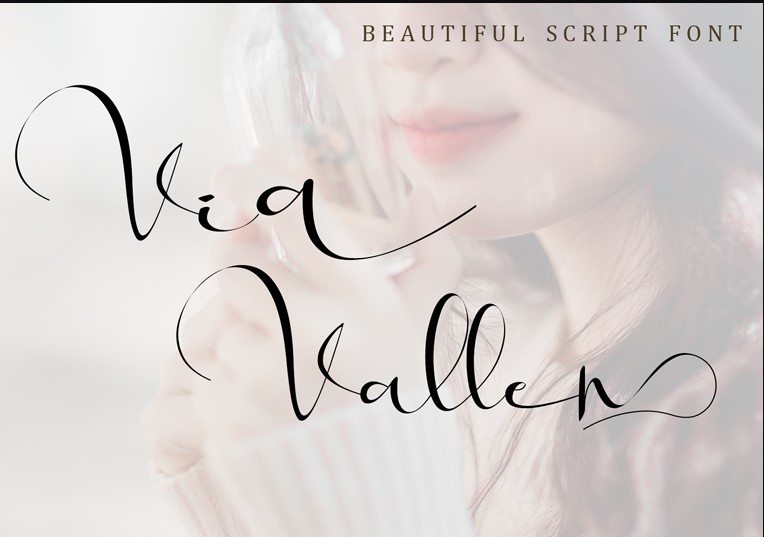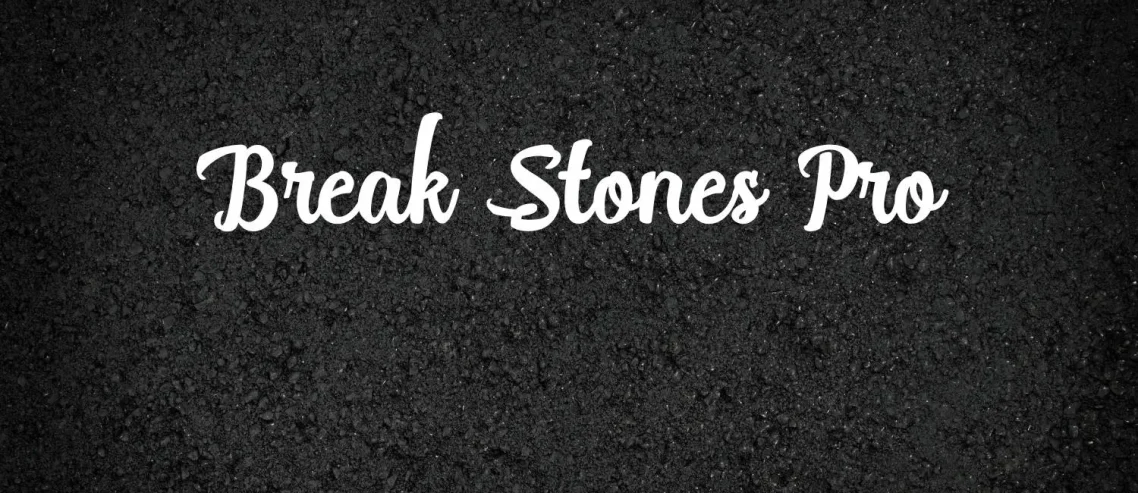
Via Vallen Font
Via Vallen font enhances the beauty of defined fonts by offering bold and italic functions. This font is also compatible with HTML. Now, the best’s manufacturers took the all right reserved for this commercial business enterprise. Its headquarter positioned downtown, north. Style Of Via Vallen Font Free Download
Break Stones Pro Font Free Download
The font “Break Stones Pro,” created by Jason Vanderhill, is a strong and striking typeface. It gives your words a solid and enduring appearance, making it ideal for headlines and titles that demand attention. The font’s strength lies in its robust design, creating a lasting impression on any project. Font Family Break Stones Pro Font …
Regime Grotesk Font
Regime Grotesk Font is highly regarded as an excellent choice for contemporary advertising and marketing, sure to leave a lasting impression. A totally well-known content fabric creator from kodex font the all right reserved for this stylish typeface. And he creates it for lucy script present-day writing and springs under the class of display fonts. Style …
Adventura Letter & Emo Font
Adventura Letter & Emo Font is the maximum applied font of the Disney global that looks just like destiny font. It is a script typeface. A famous American content creator took the all proper for this fashionable typeface. And he creates it for them makes the content material cloth appearance fashionable. Style Of Adventura Letter …
Orator STD Medium Font Free Download
The Orator STD Medium font, designed by talented typographer Jessica Reynolds, is a versatile and robust typeface that strikes a perfect balance between modernity and classic aesthetic. Renowned for her keen eye for detail and innovative design approach, Reynolds crafted Orator STD Medium to be a reliable choice for a variety of design applications. The …
Jersey M54 Font
Jersey M54 Font is not your typical outline font. It’s in the same league as the popular varsity font. Using this font can enhance your writing skills and make them more appealing. Want to step up your font game? Try this unique style! Now, the incredible’s businesses inc took the all proper reserved for this …